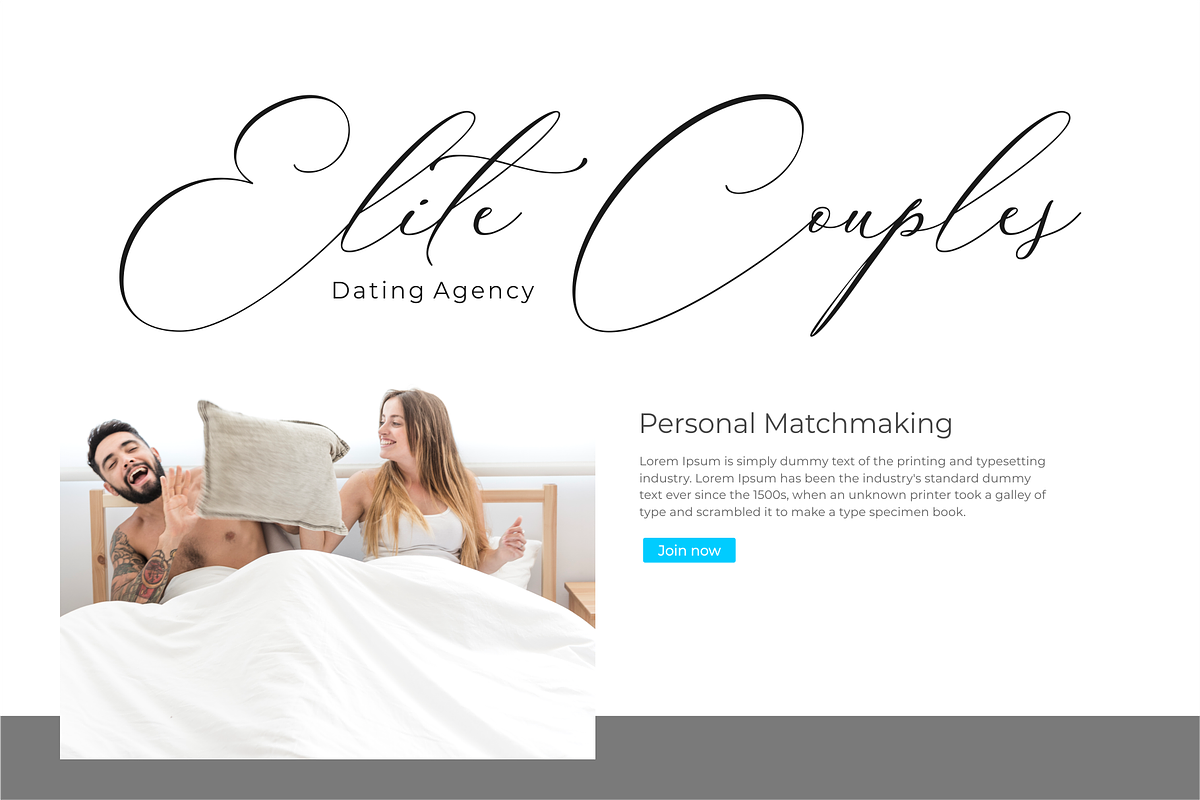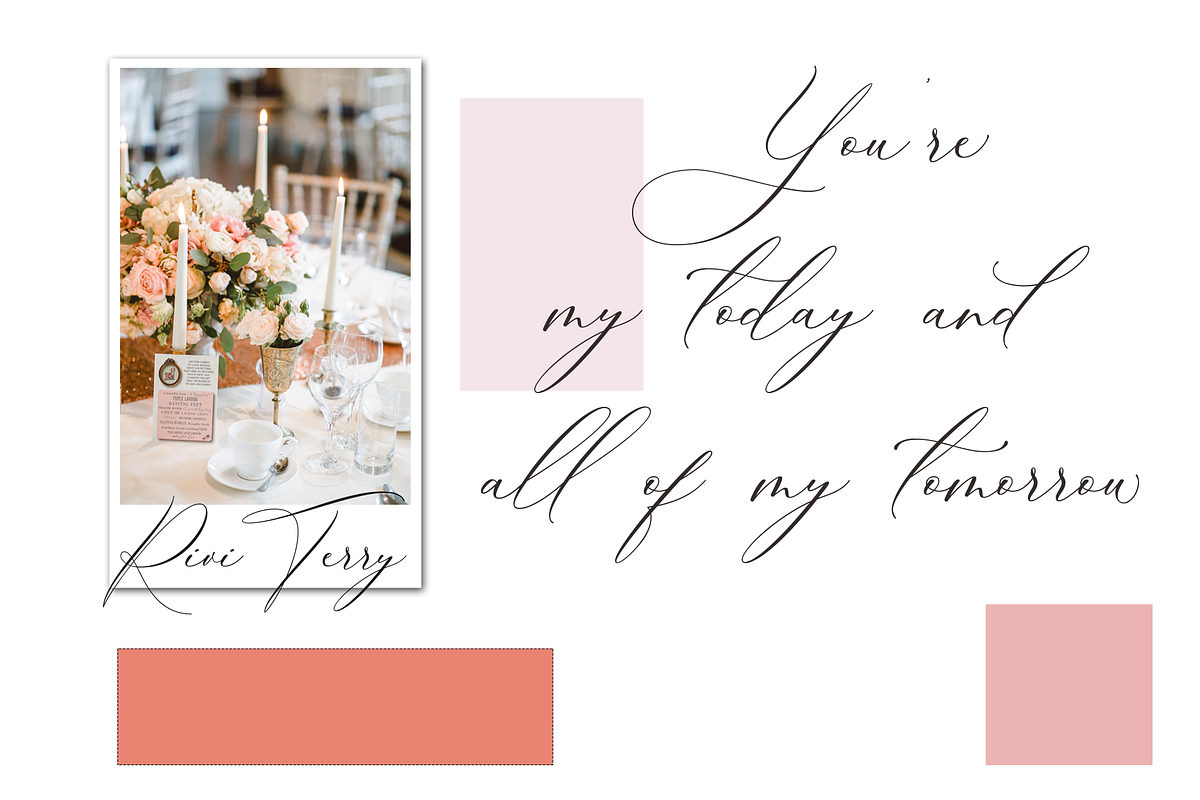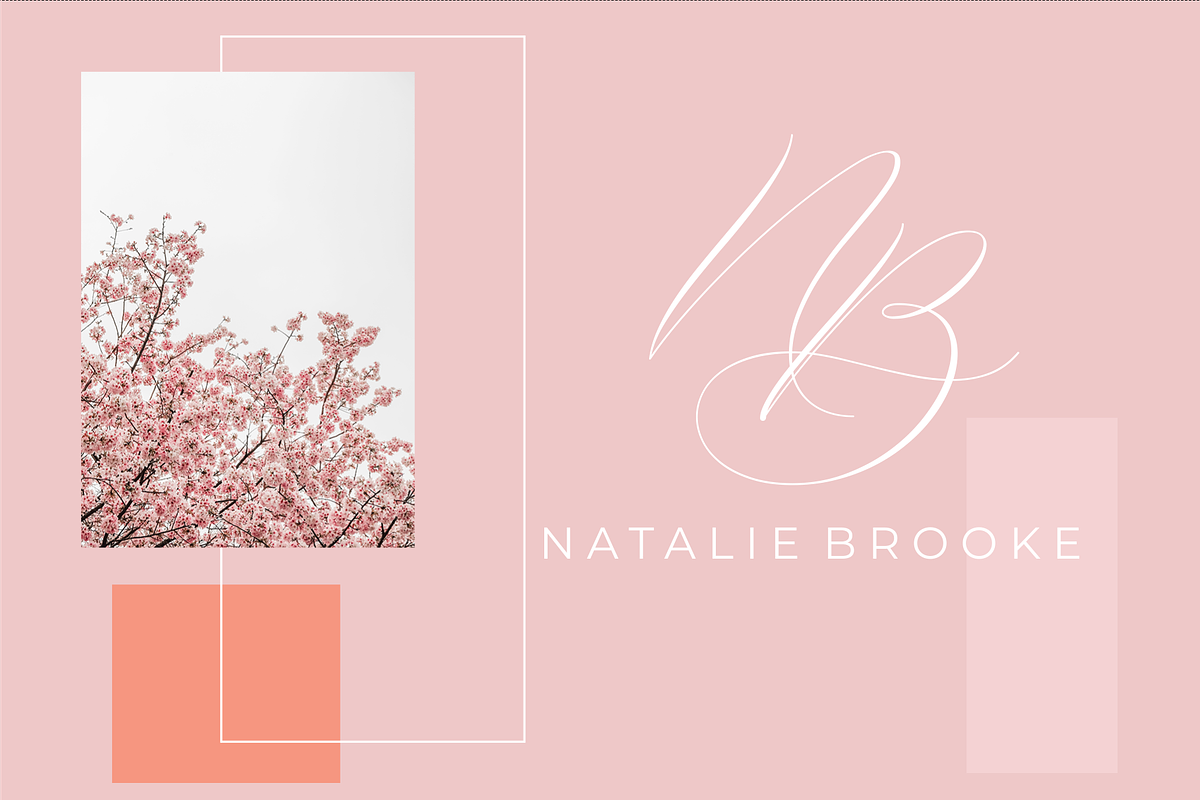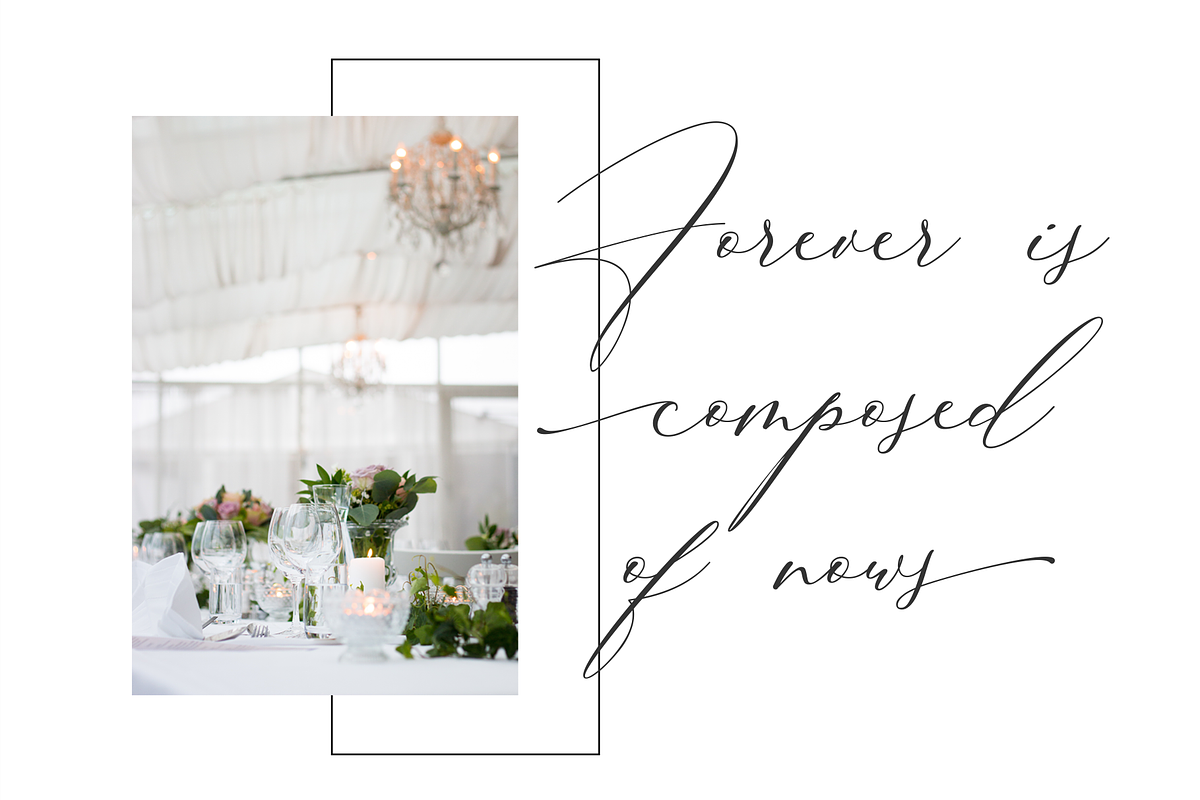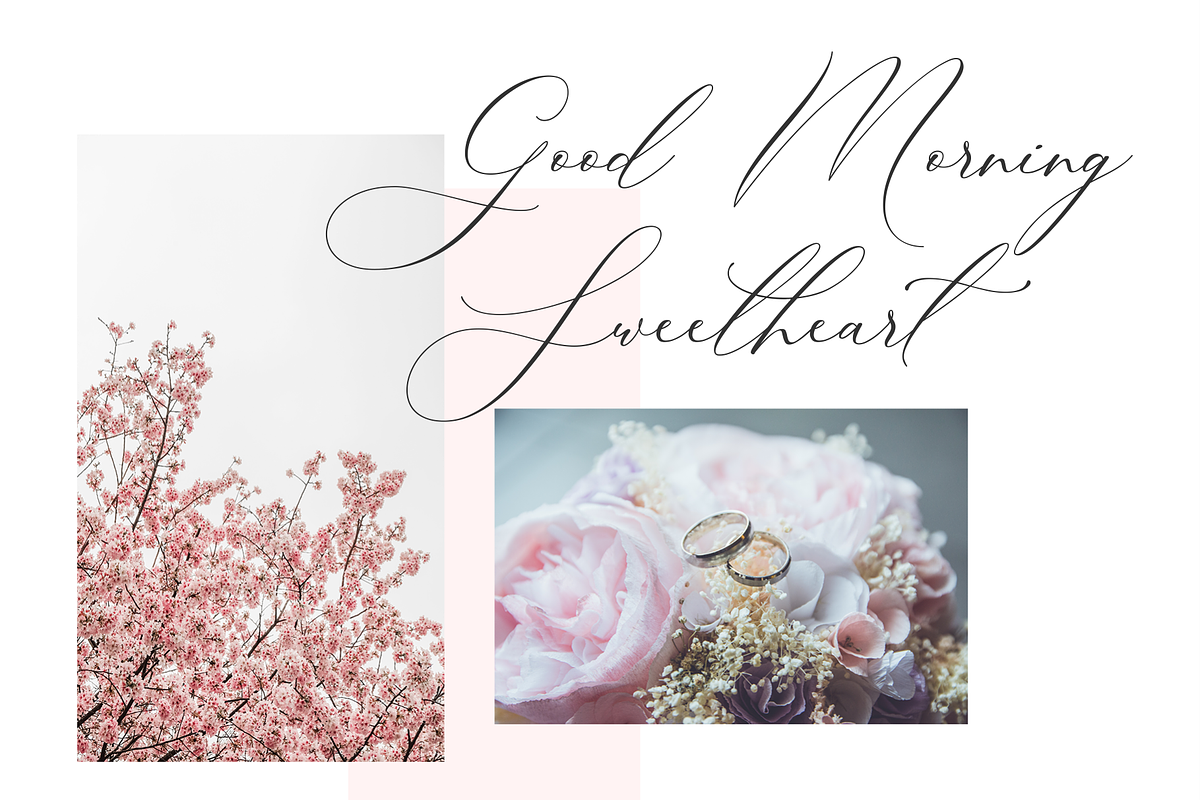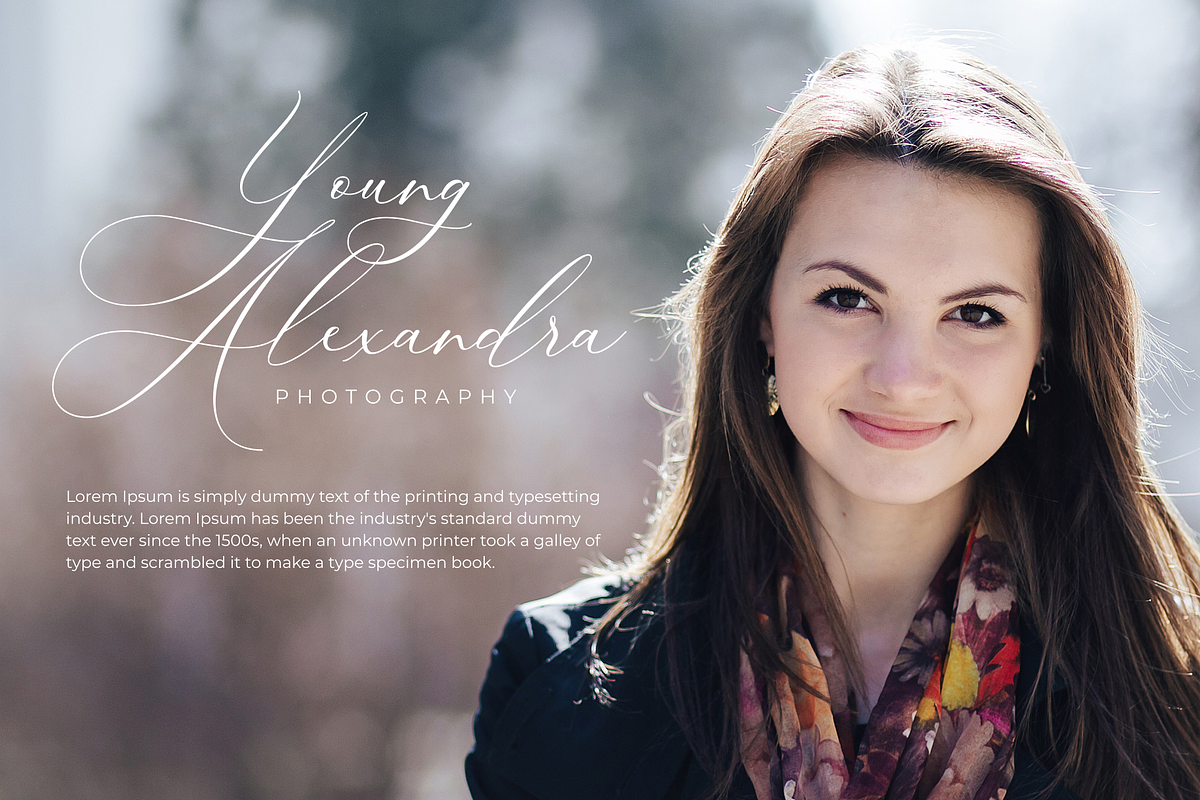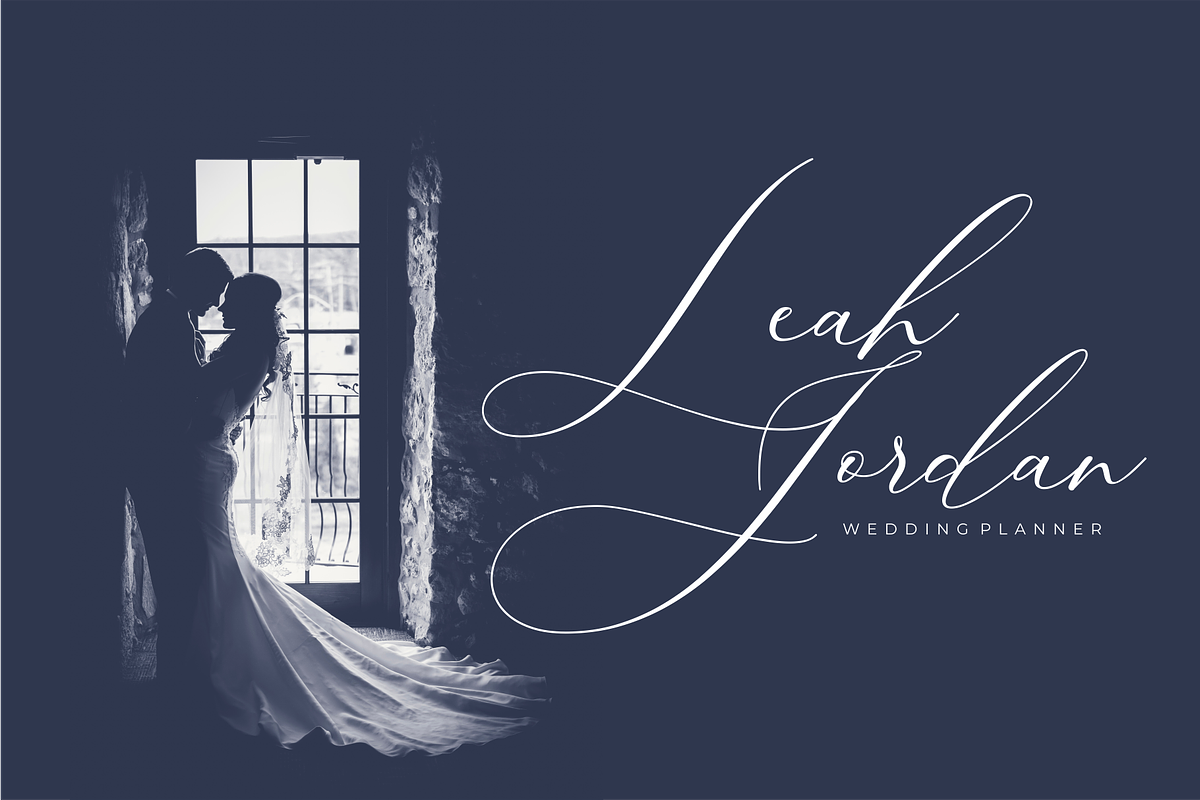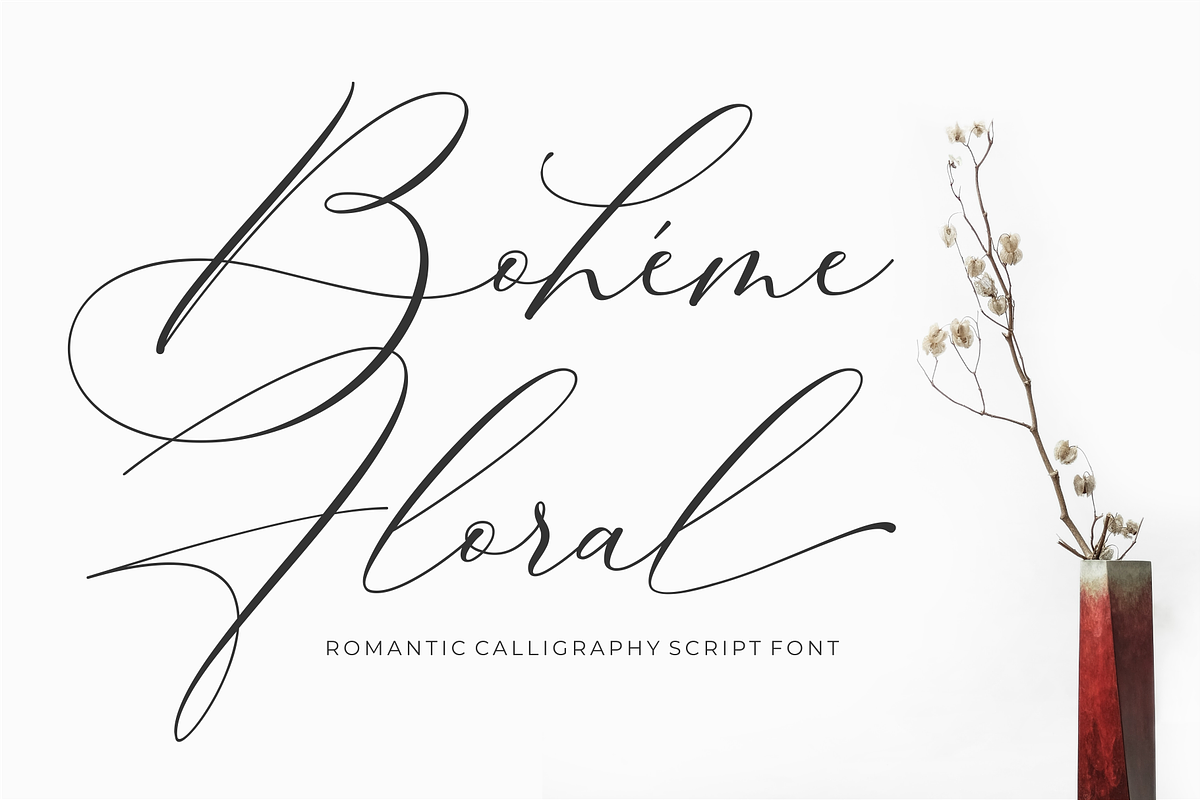
Luxury Font - Boheme Floral
Introducing Bohéme Floral Script Font a classic romantic calligraphy with lovely movements. This font also has lovely ligatures, alternative letters and swashes.
Bohéme Floral Script Font is great for logo, printed quotes, badge, insignia, packaging, headline, poster, t-shirt/apparel, greeting card, and wedding invitation, & etc.
- This font also has lovely ligatures, alternative letters and swashes.